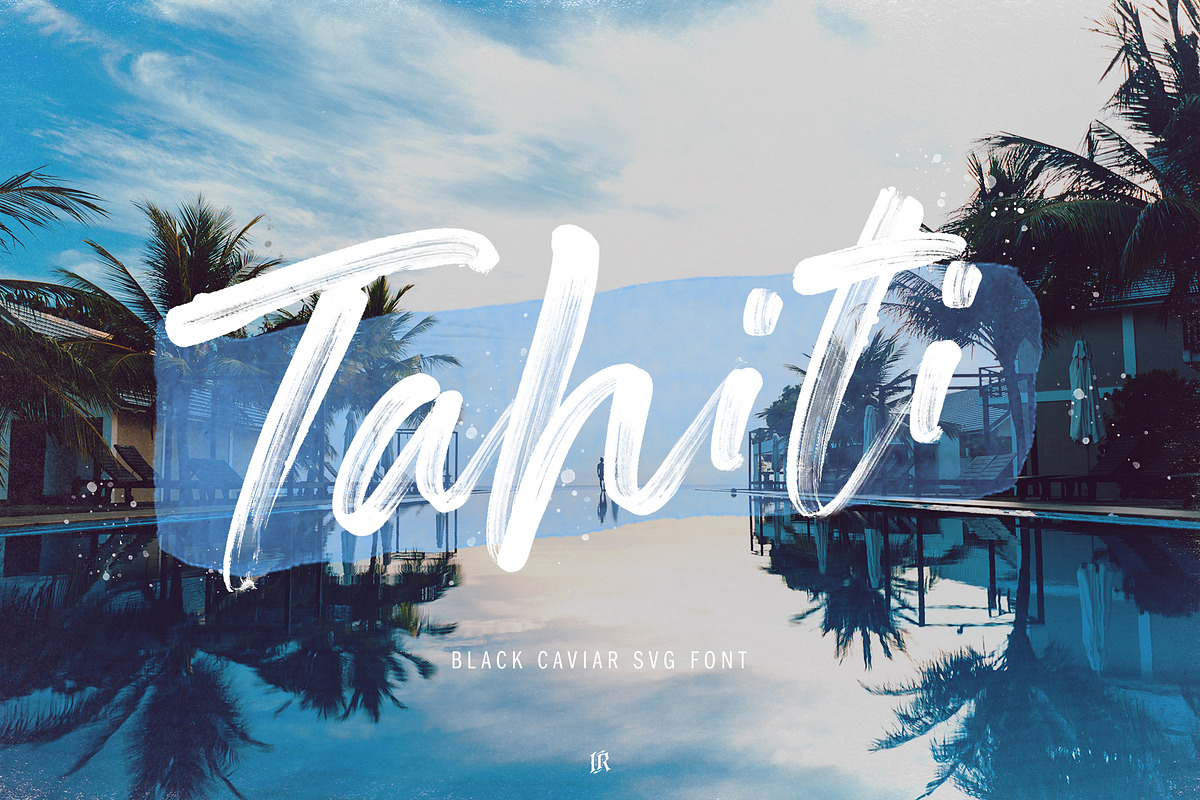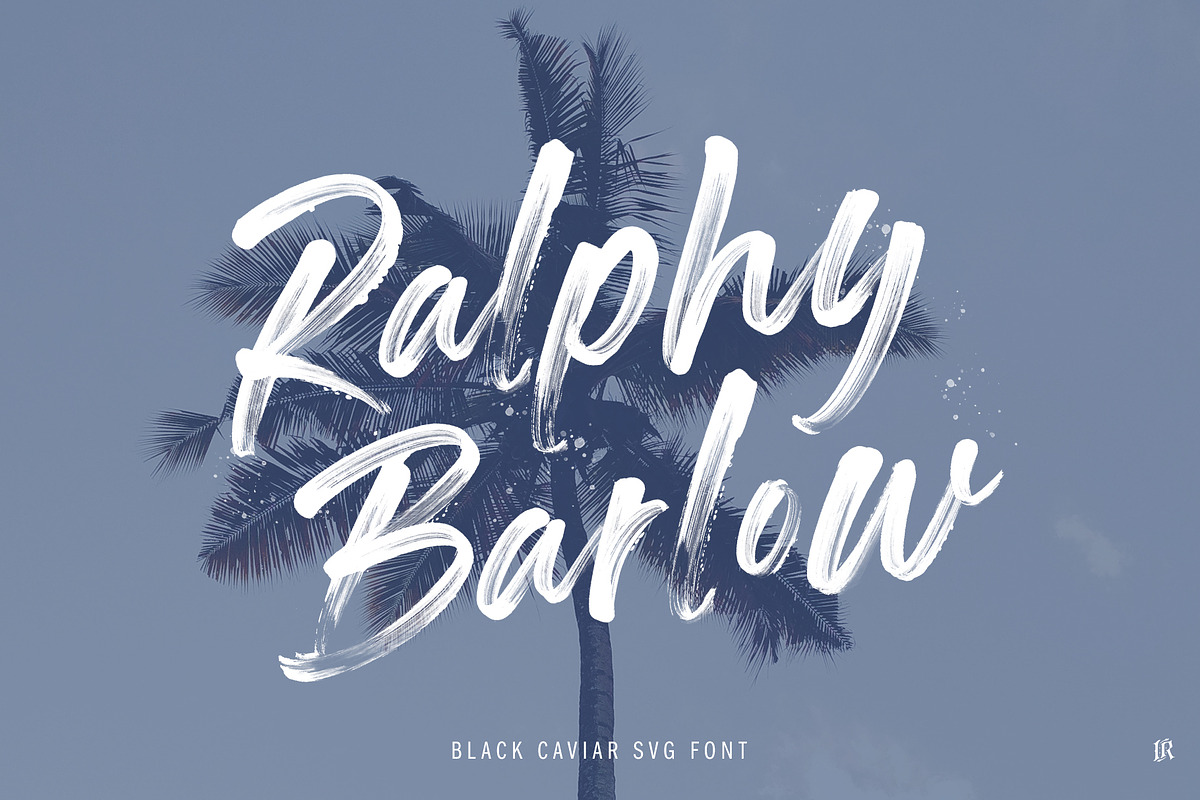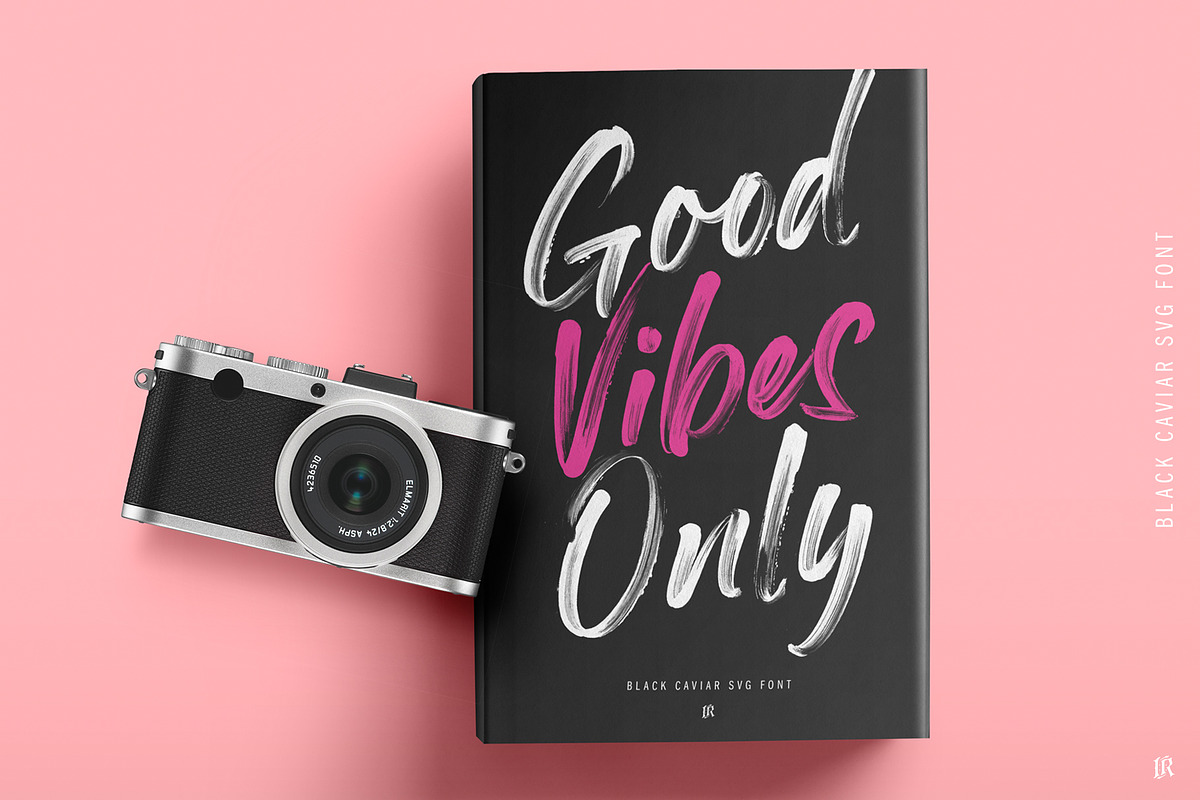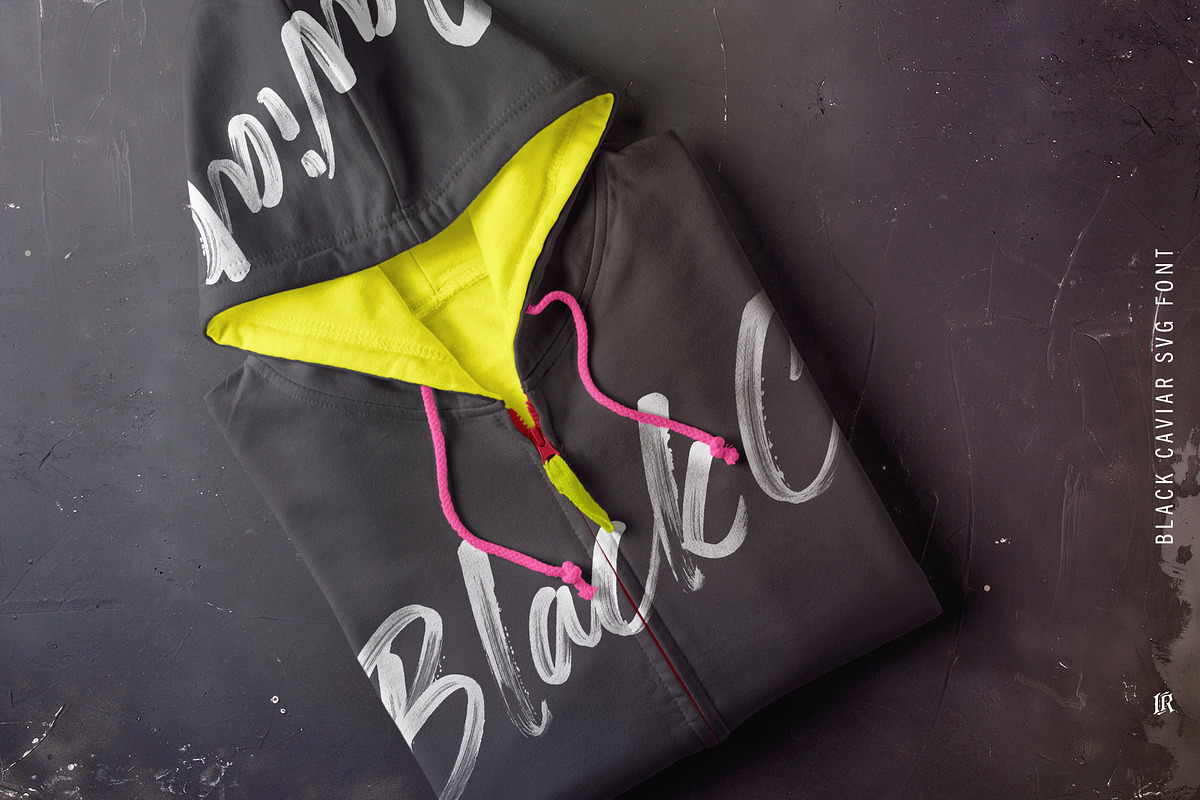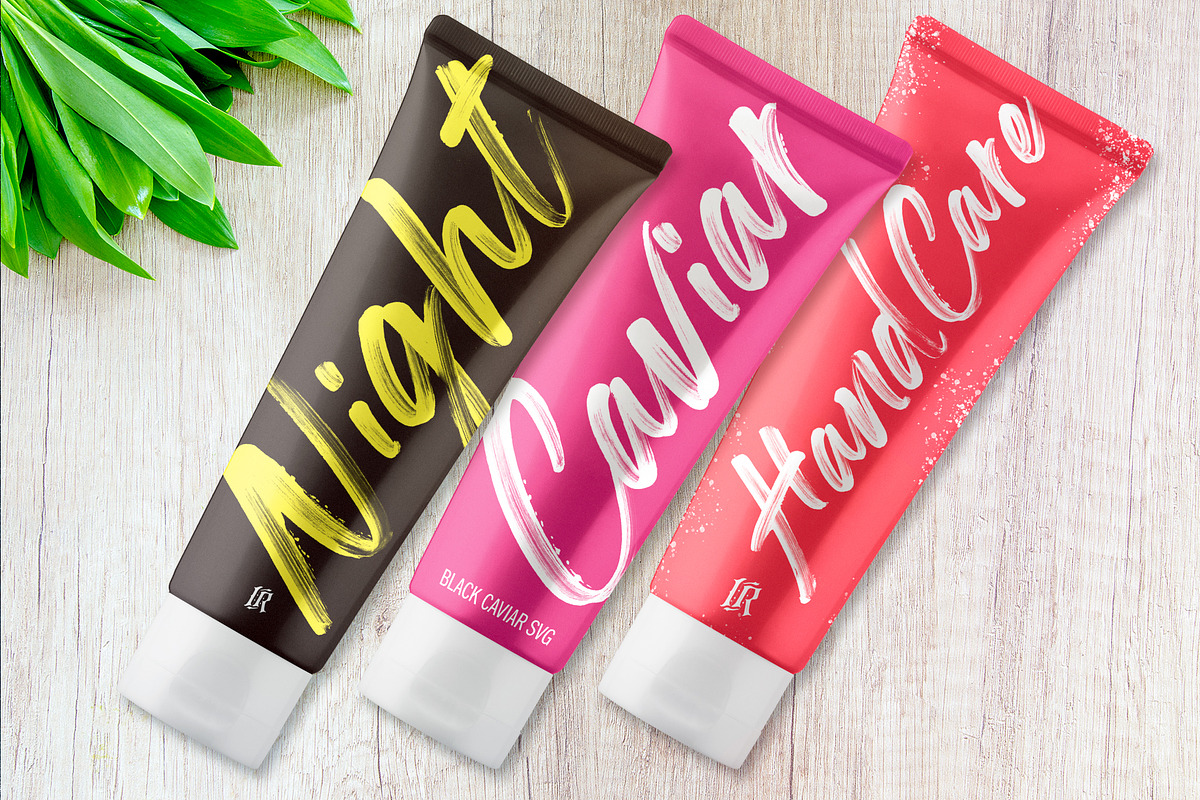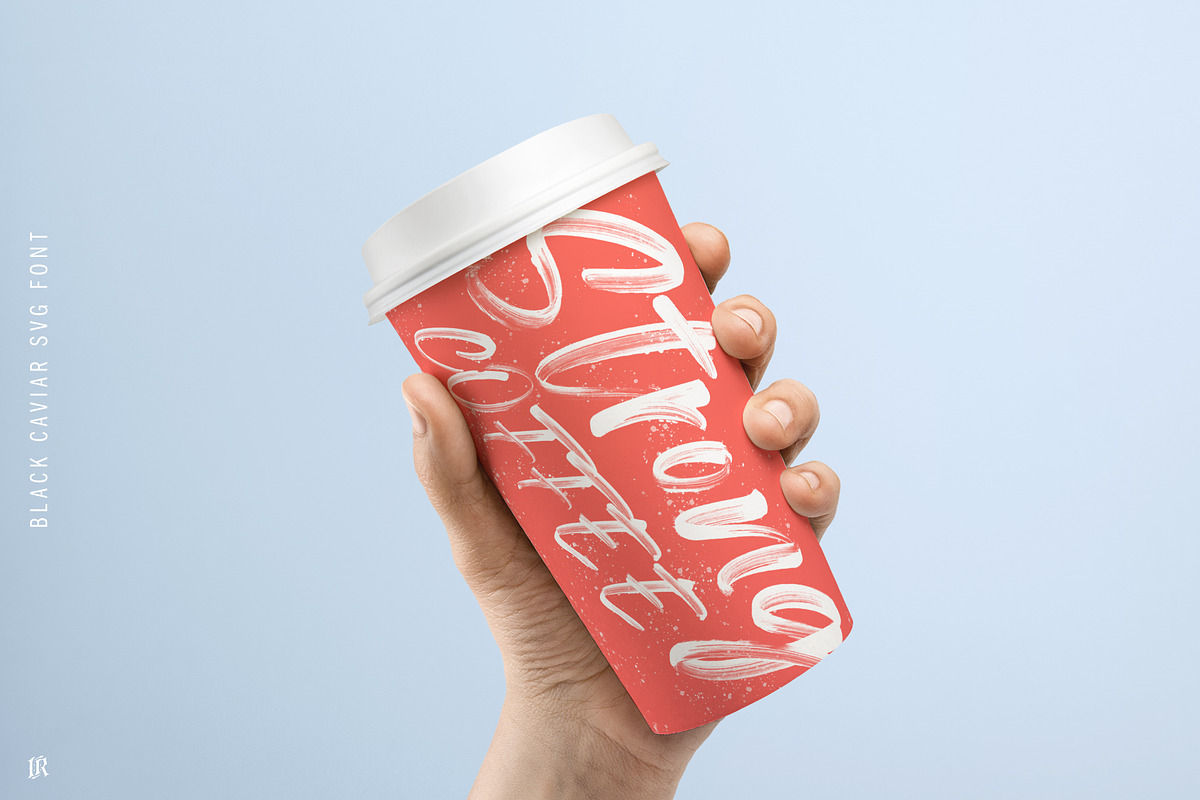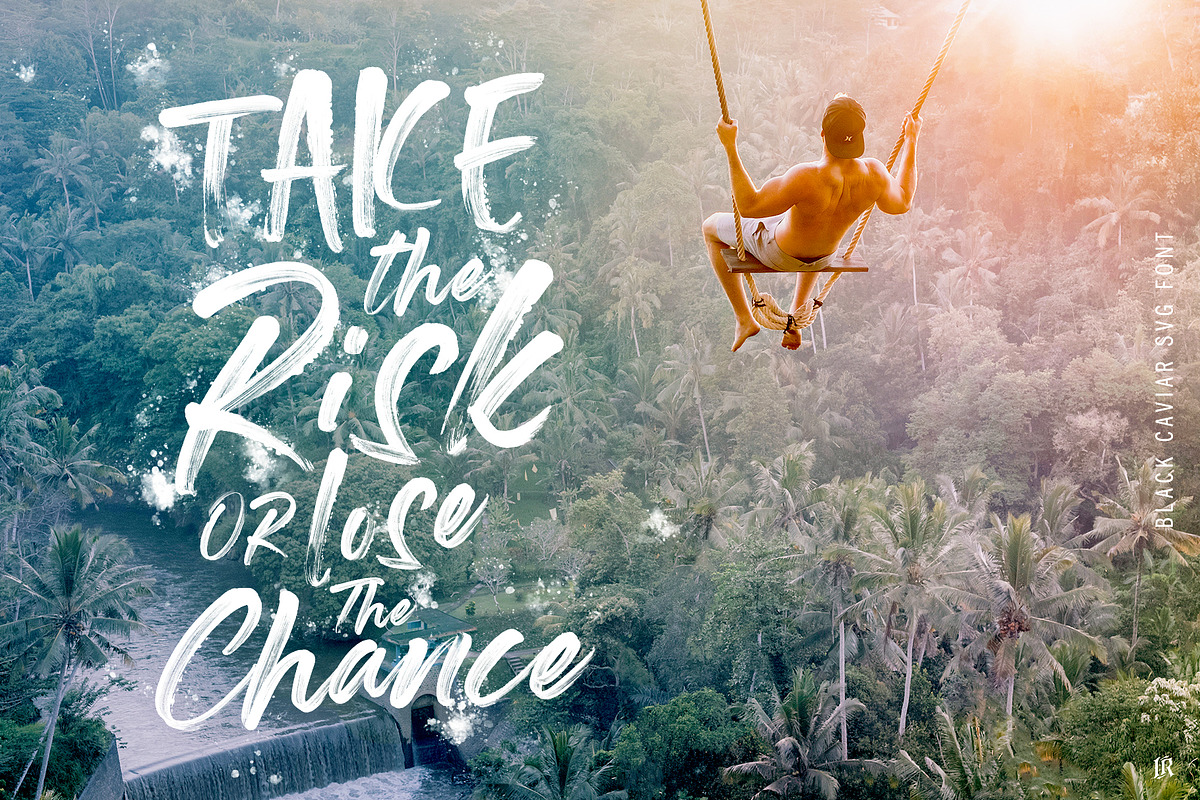
Black Caviar SVG Font
Black Caviar SVG Font preserves all the high definition detail of the original handwritten letters. Using OpenType-SVG technology it truly looks realistic. The OpenType-SVG format requires Photoshop CC 2017 or Illustrator CC 2018 (or newer). Regular OTF format is also included.
Black Caviar OpenSVG Font A high definition OpenSVG brush font with realistic texture (You need to be using Photoshop CC 2017.1.1, Illustrator CC 2018 or later)
Black Caviar OpenSVG Font ALT Alternates to the original lowercase glyphs (You need to be using Photoshop CC 2017.1.1, Illustrator CC 2018 or later)
Black Caviar OpenSVG Font ALLCAPS ALL CAPS SVG FONT (You need to be using Photoshop CC 2017.1.1, Illustrator CC 2018 or later)
Black Caviar SVG Font by Ivan Rosenberg fits naturally into Branding, posters, packaging, typography.